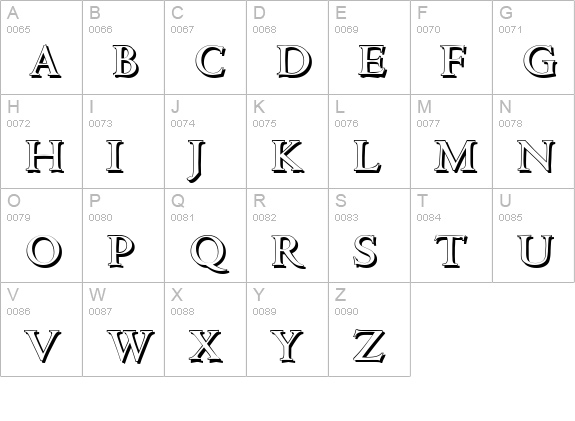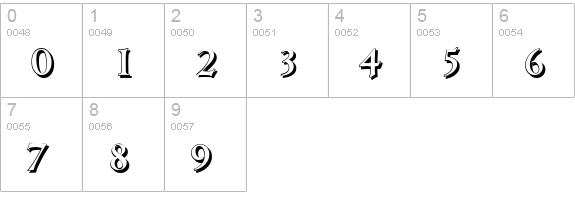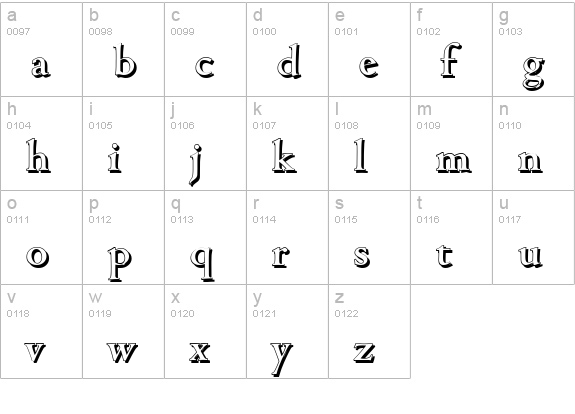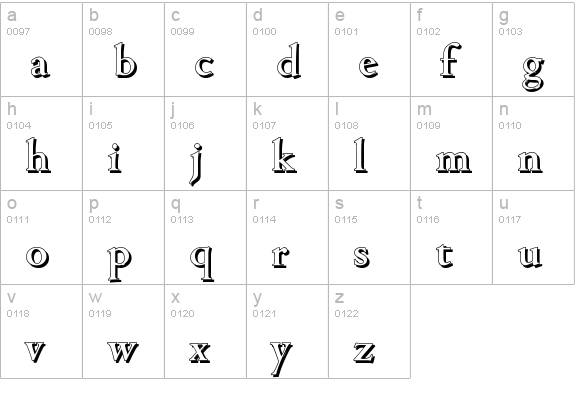
CambridgeShadow-Medium-Regular is a balanced, medium-weight variant in the CambridgeShadow typeface family \xE2\x80\x94 well suited to sub-headlines, navigation, and balanced editorial work.
CambridgeShadow-Medium-Regular font is a classic and sophisticated typeface that exudes elegance and charm. Its medium weight strikes the perfect balance between readability and style, making it ideal for a wide range of design projects. The unique shadow effect adds depth and dimension to the letters, creating a visually appealing text that captures attention. What makes CambridgeShadow-Medium-Regular font even more appealing is that it is available for free download at FontsMarket.com. This means that you can easily access and use this exquisite font in your personal or commercial projects without any cost involved. With its timeless design and versatility, CambridgeShadow-Medium-Regular font is sure to elevate your designs and make a lasting impression on your audience.